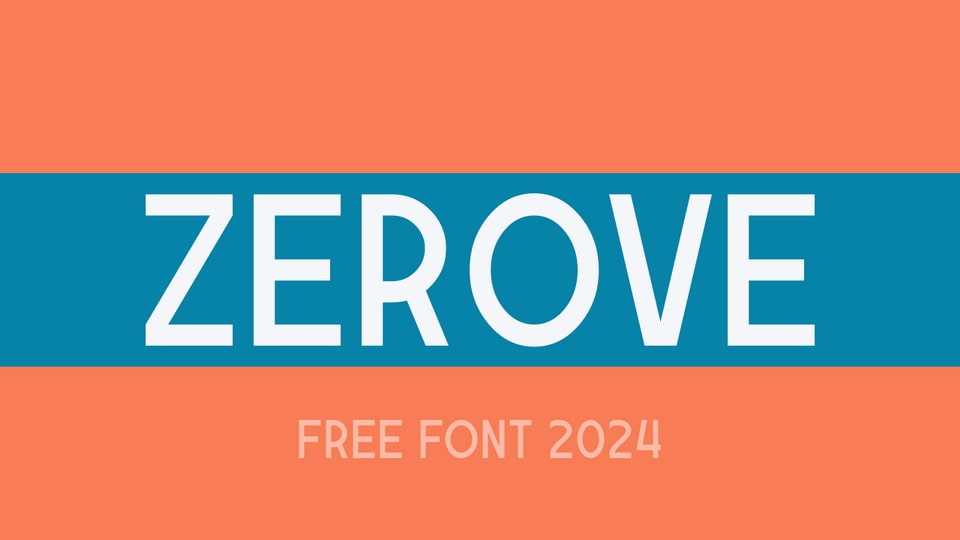
Download Zerove font, a simple geometric all-caps sans-serif typeface that embodies clarity and modernity with its clean lines and symmetrical shapes.